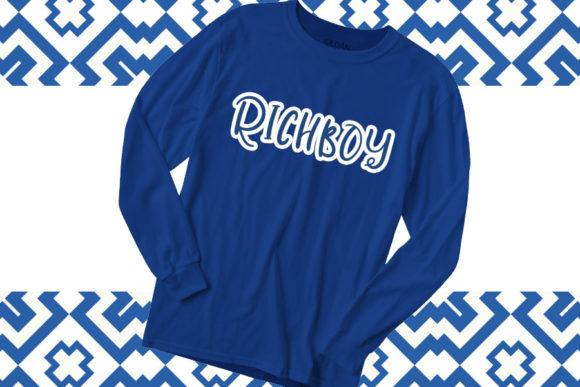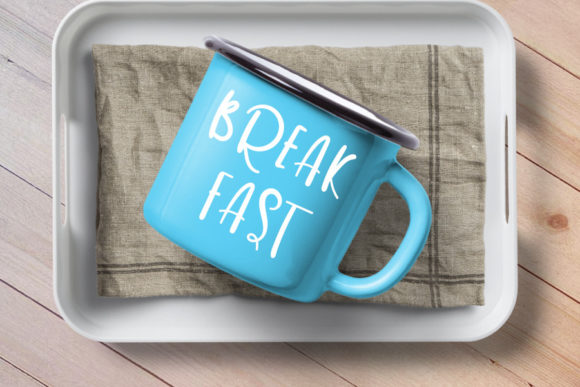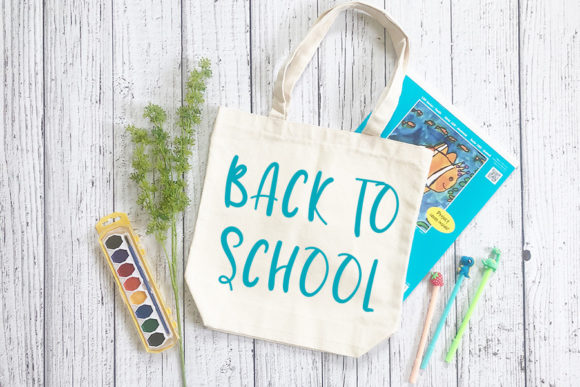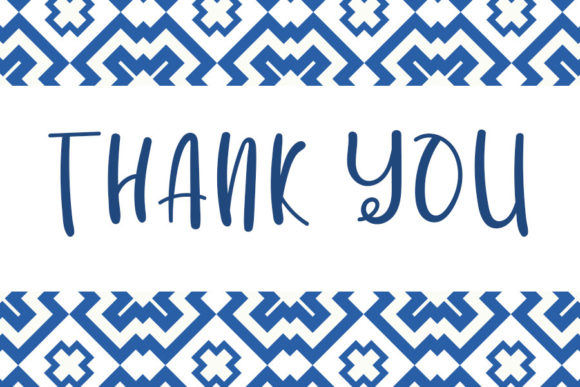
Santorini Font
About Santorini Font
Santorini is a tall, casual and relaxed handwritten font. Its natural and unique style makes it incredibly fitting to a large pool of designs. The only limit is your imagination!